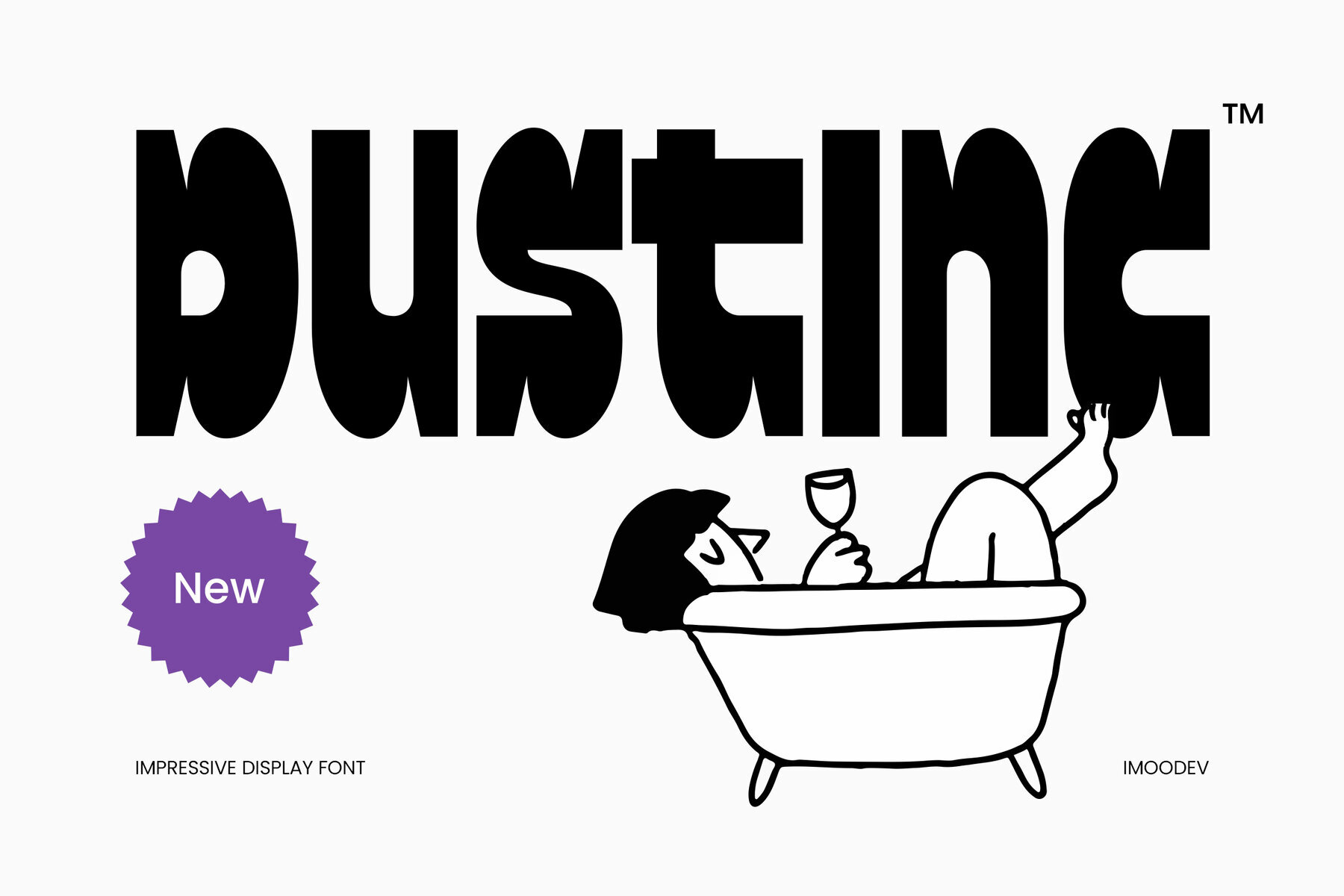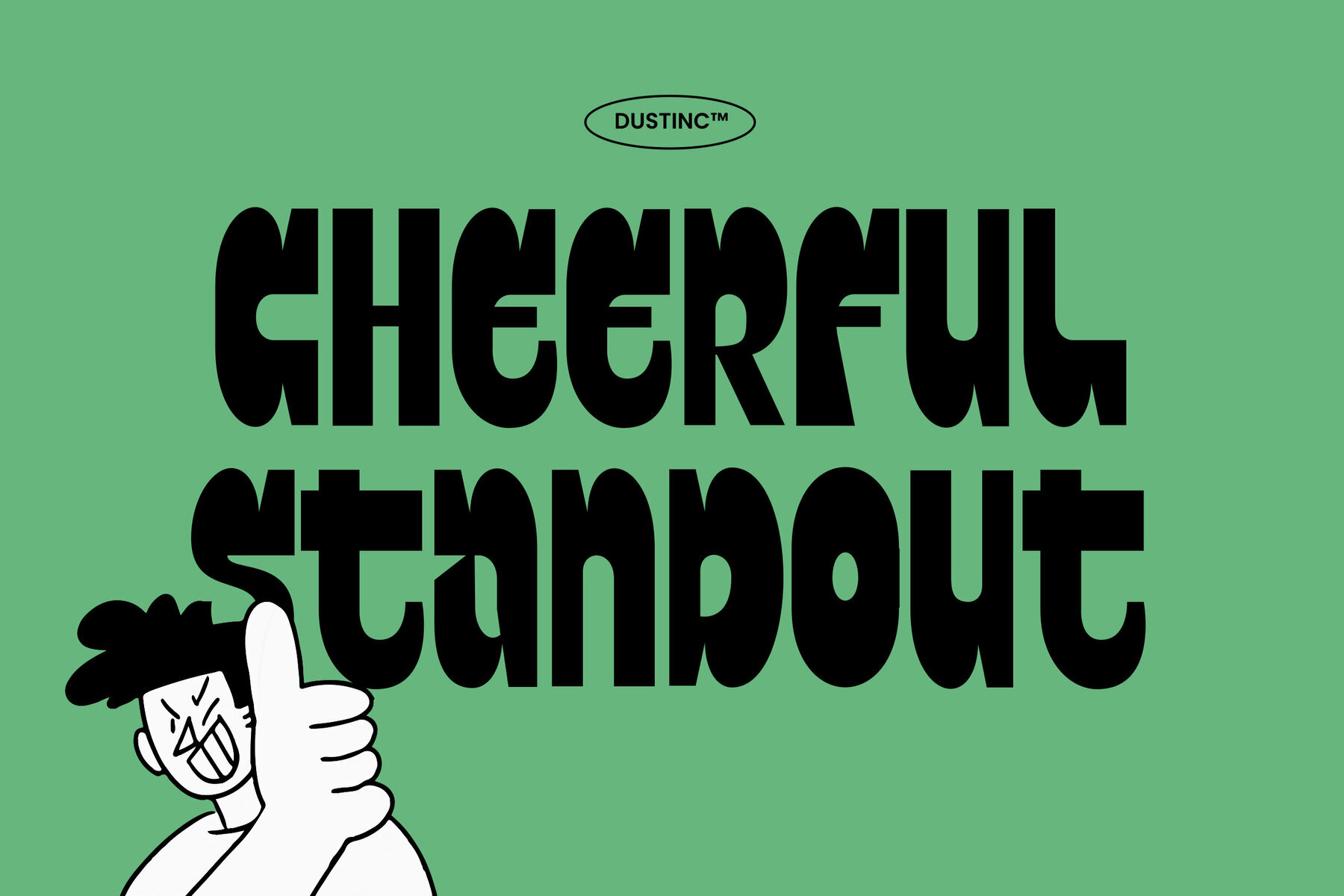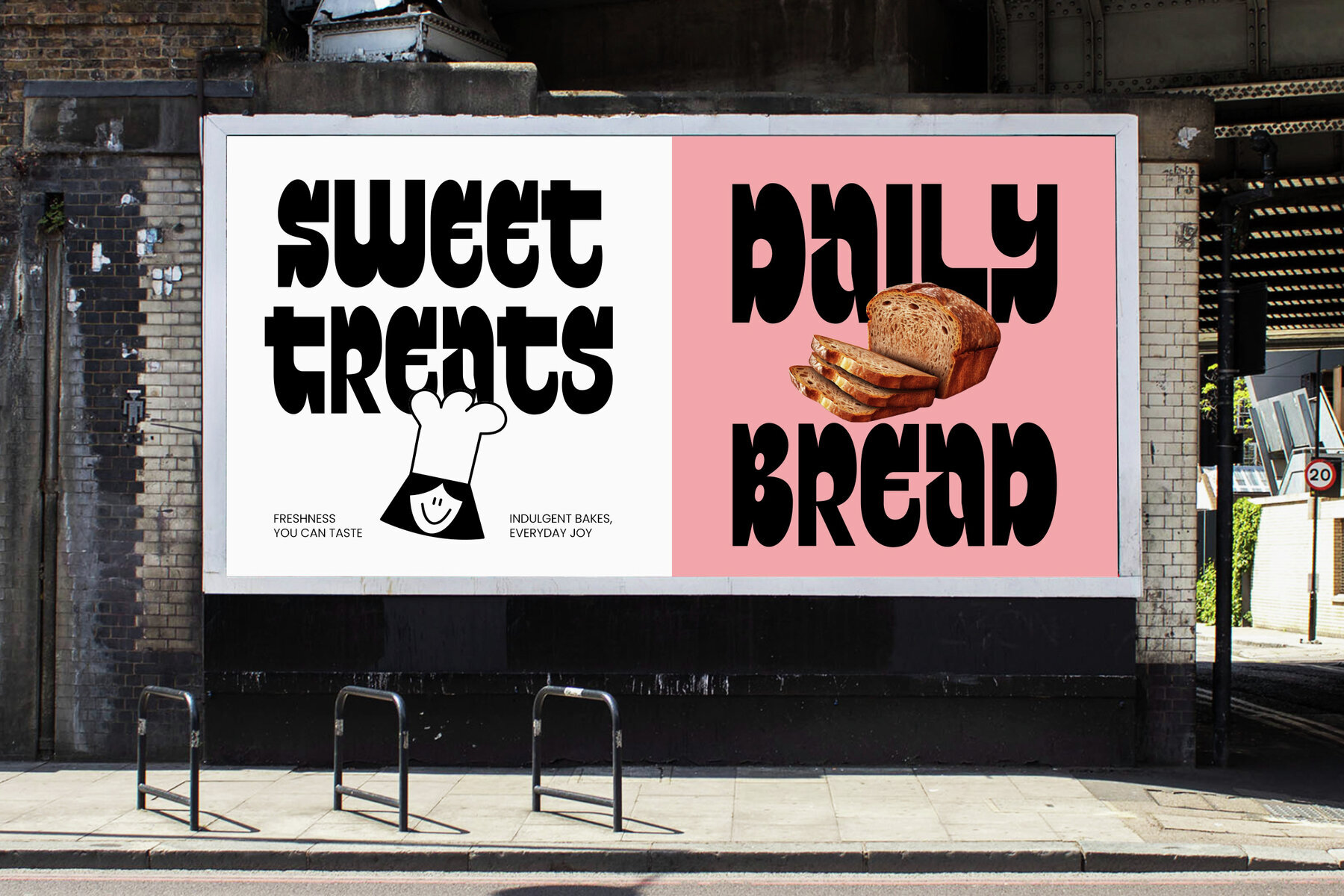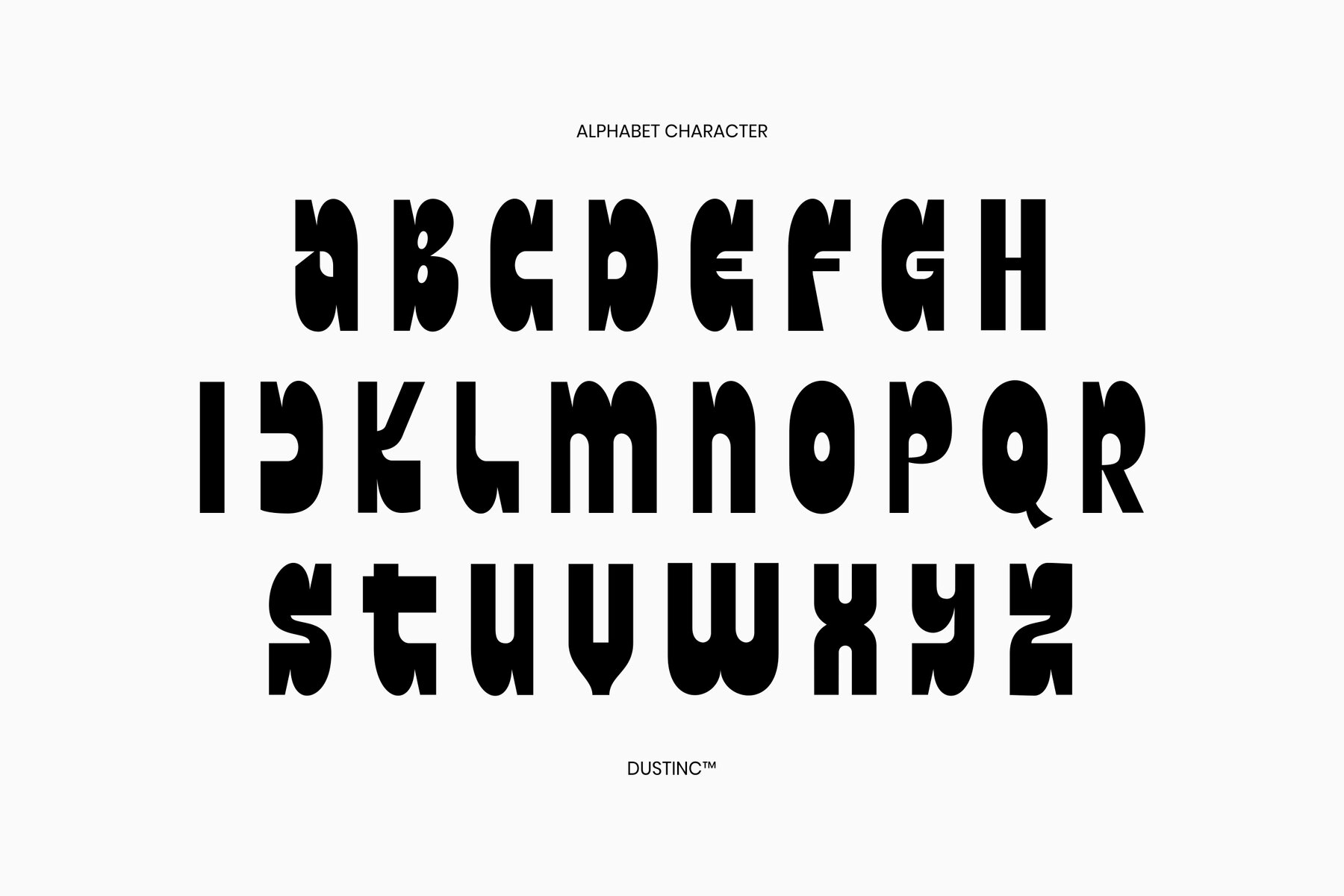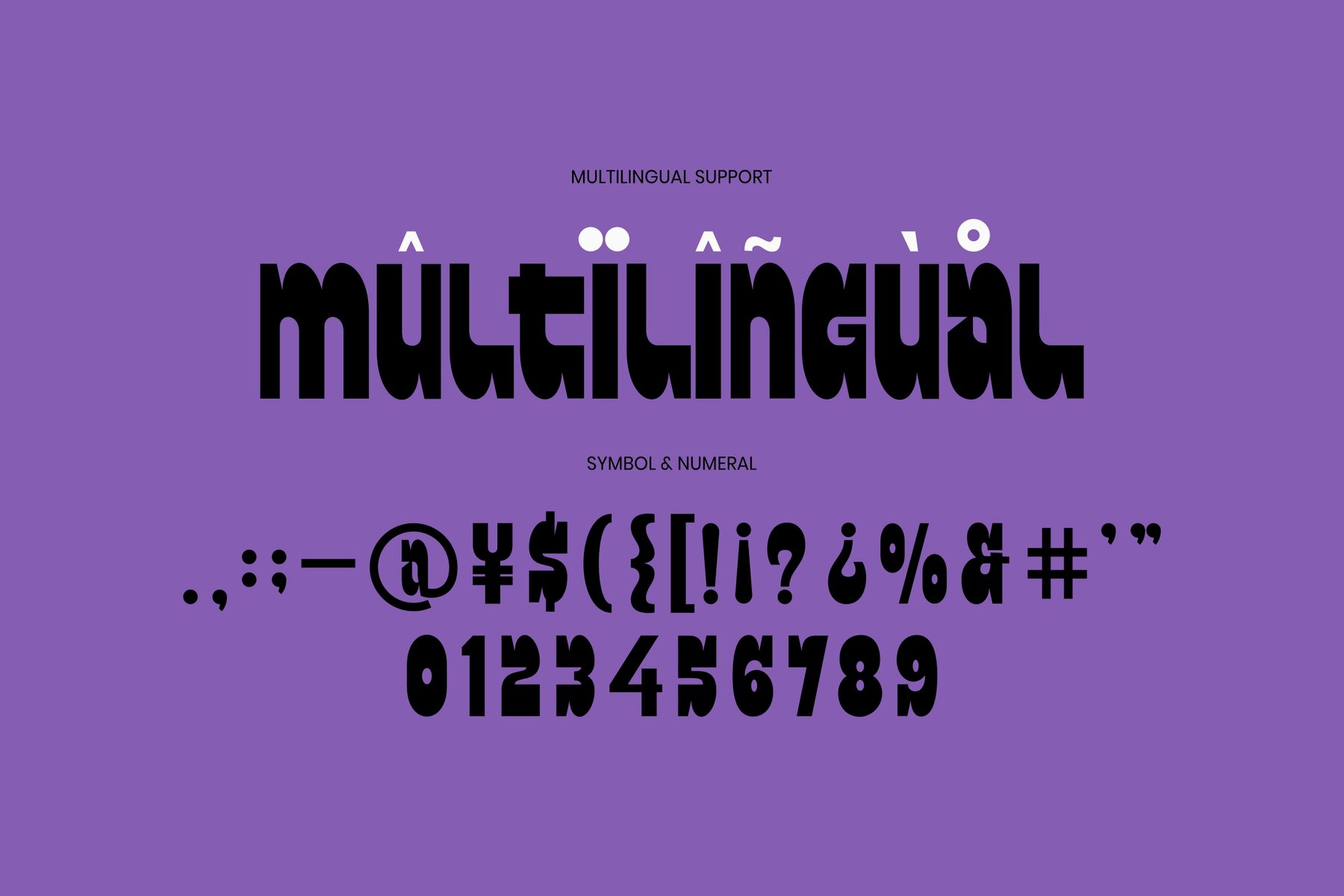
Dustinc Font
Dustinc is a bold, modern display typeface that draws inspiration from geometric forms of the 1970s combined with contemporary experimental outlines. The result is a font that balances striking presence with a welcoming, approachable energy. Its design offers a distinctive blend of retro flair and modern function, making it a versatile choice for designers seeking both style and substance. Each letter features slight irregularities and large, rounded edges, creating a visually dynamic texture that stands out in both digital and print settings. The playful, nostalgic tones work seamlessly across branding, posters, album covers, and promotional materials where conveying vibrancy and optimism is essential.Dustinc: Playful Geometry Meets Modern Display